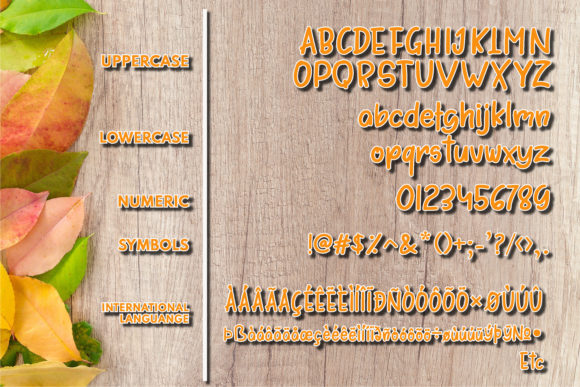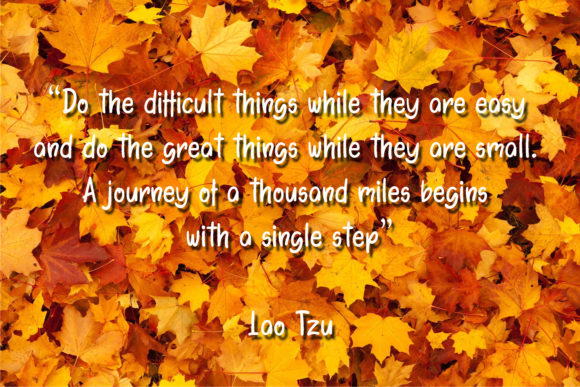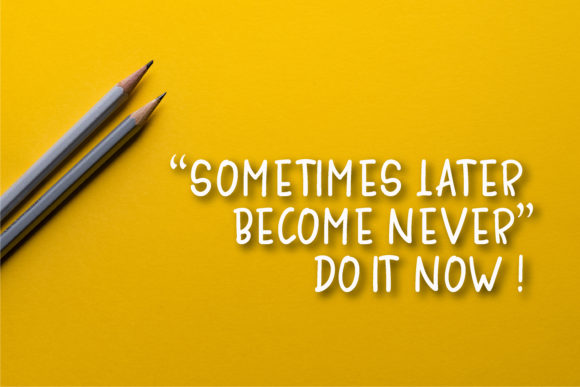
The Magic of Bordeaux Font: Elevate Your Designs with a Touch of Autumn Charm
I’ll never forget the time I was working on a cozy autumn-themed project for a client, and I just couldn’t find the right font to bring it all together. The design was almost there, but it was missing that special something to make it pop. That’s when I stumbled upon the Bordeaux font, and it was love at first sight! ✨ This simple yet casual handwritten font has a beautiful autumn feel that instantly elevated my design to the next level. In this article, I’ll share my experience with Bordeaux, its features, and how to make the most of it in your designs.
An Honest Review of Bordeaux Font
What I Love About Bordeaux Font
- ✨ Autumnal vibe: Bordeaux has a unique, cozy feel that’s perfect for autumn and winter designs.
- ✅ Versatility: This font is incredibly versatile and can be used for quotes, branding, headings, wedding designs, invitations, logos, labels, and more.
- 💫 Elegant simplicity: Bordeaux has a simple, handwritten look that’s both elegant and easy to read.
While Bordeaux is an amazing font, there are a few things to keep in mind: ⚠️
- 🤔 Limited use in very formal designs: Bordeaux has a casual, handwritten feel, so it might not be the best fit for very formal or corporate designs.
- ⚠️ Some letters may require manual kerning: As with any font, you might need to adjust the kerning for certain letter combinations to get the best results.
The Story Behind Bordeaux Font
Bordeaux was designed with the intention of capturing the cozy, warm feeling of autumn. The designer wanted to create a font that would evoke the sense of snuggling up with a good book on a chilly fall evening. With its simple, handwritten look and beautiful autumnal vibe, Bordeaux has become a favorite among designers and crafters.
Q: Can I use Bordeaux for my branding and logo design?
A: Absolutely! Bordeaux font has a unique, elegant look that’s perfect for branding and logo design. Its simplicity and readability make it an excellent choice for creating a lasting impression.